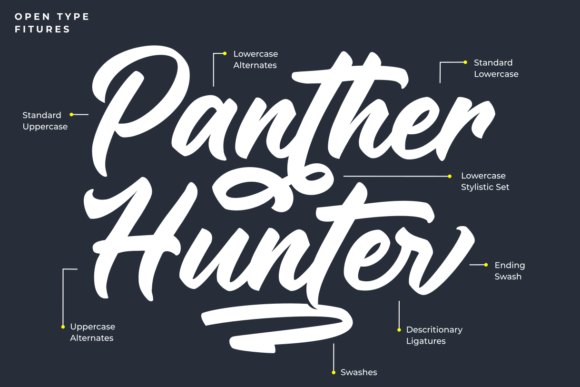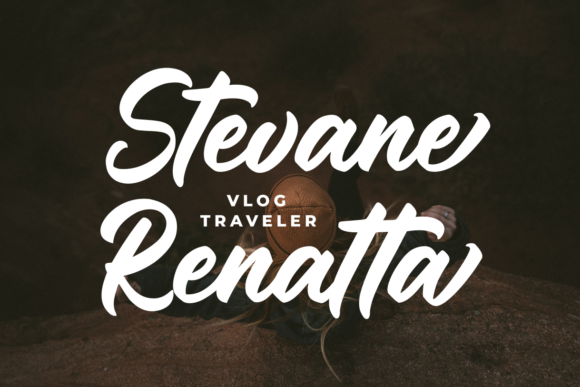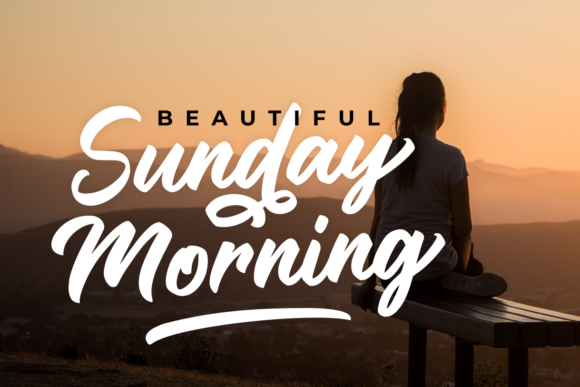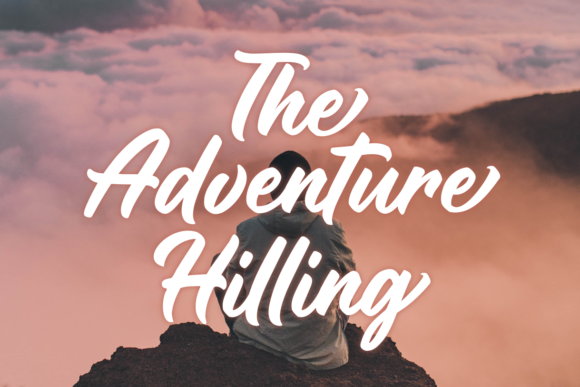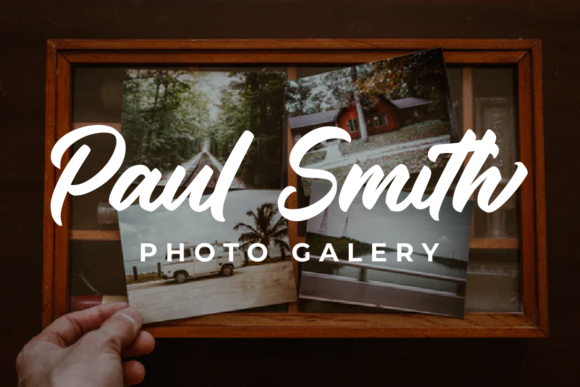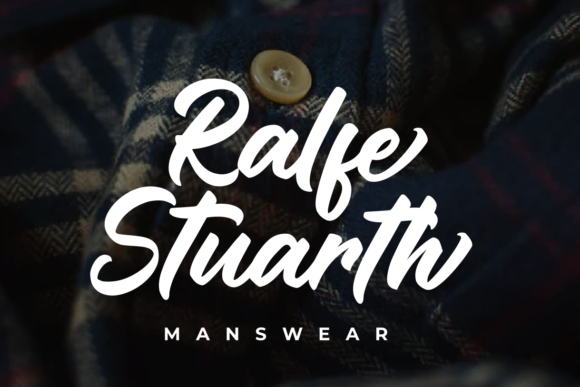
Introduction to Panther Hunter Font
Panther Hunter is a hand-lettered script font.
It has an elegant and smooth style and is perfect for making any design that needs to stand out It is suitable for branding, logotype, packaging, print titles, T-shirt design, food design, and similar projects.
Key Features of Panther Hunter Font